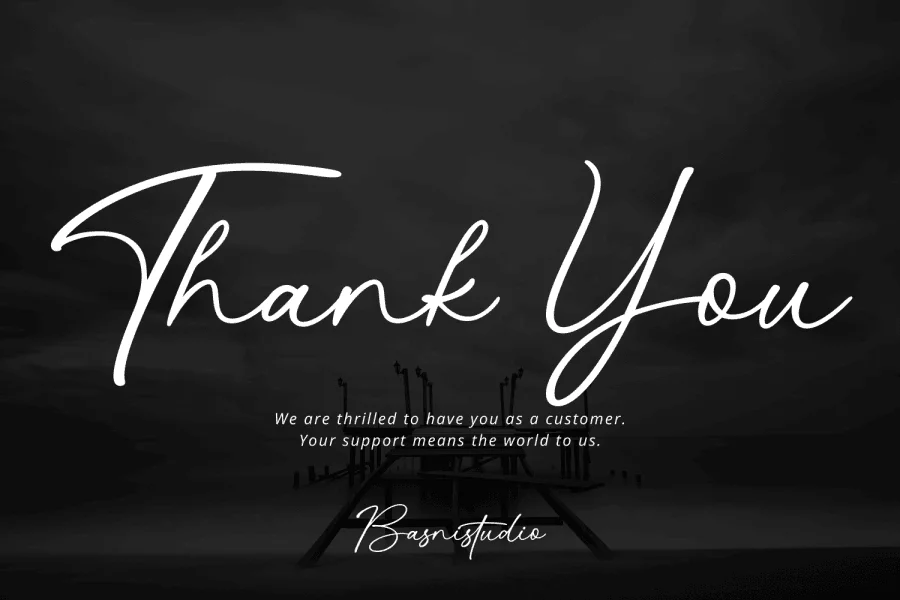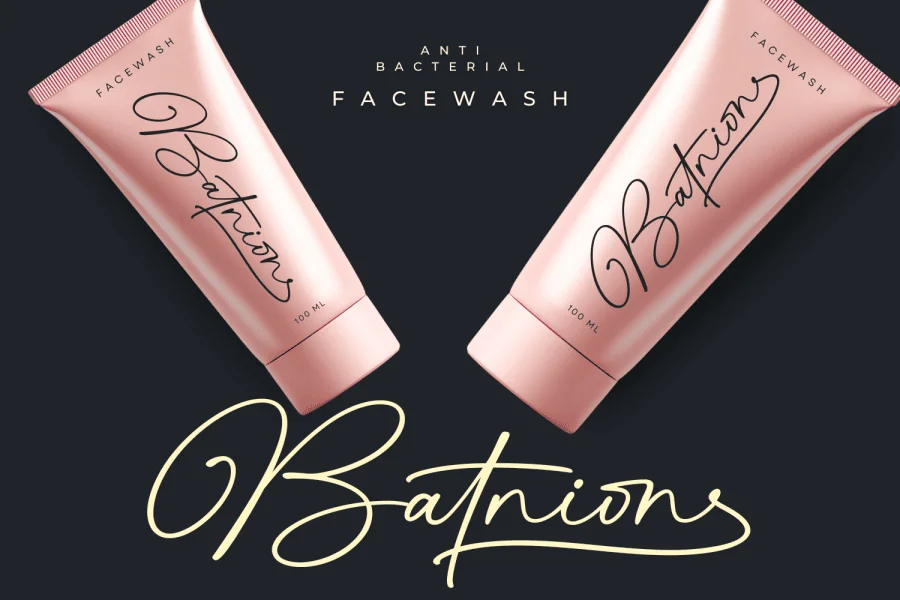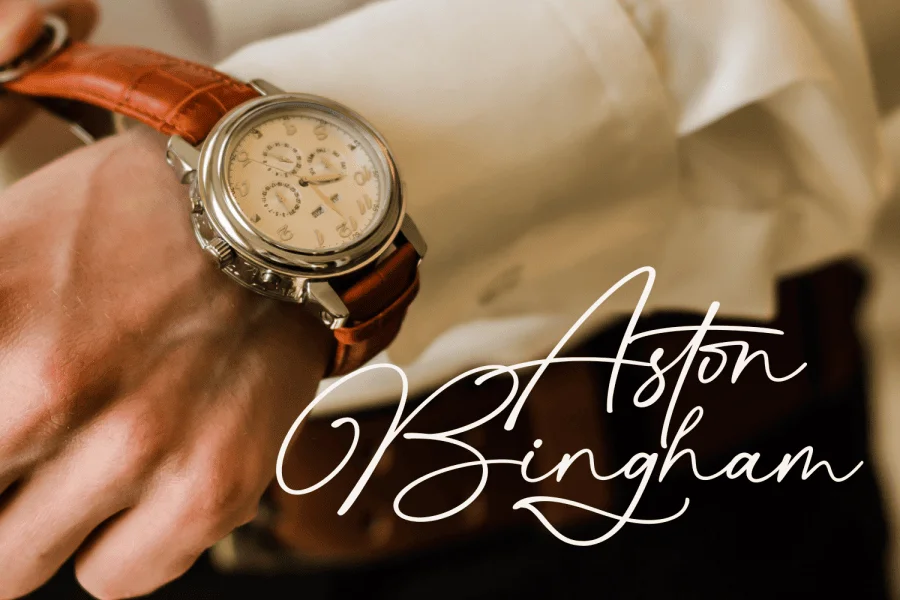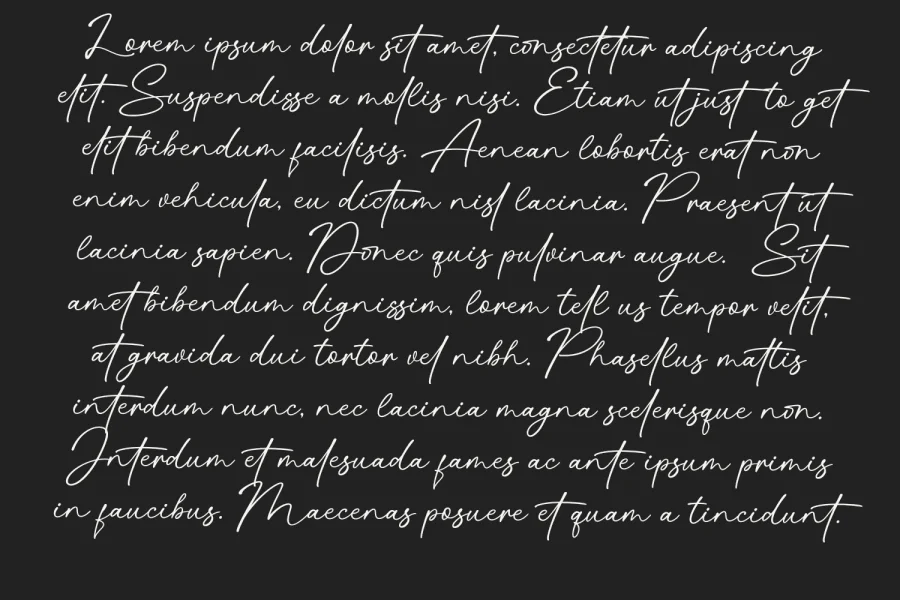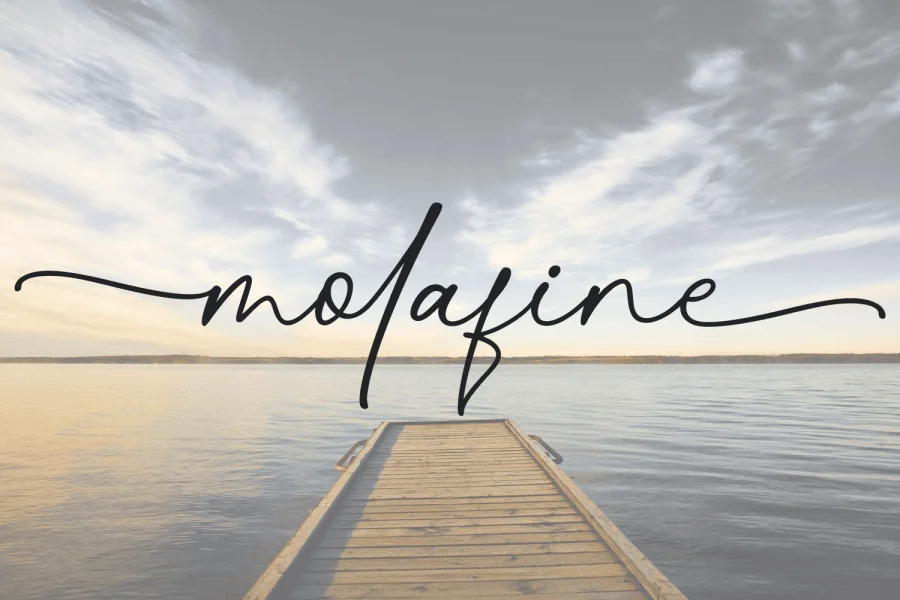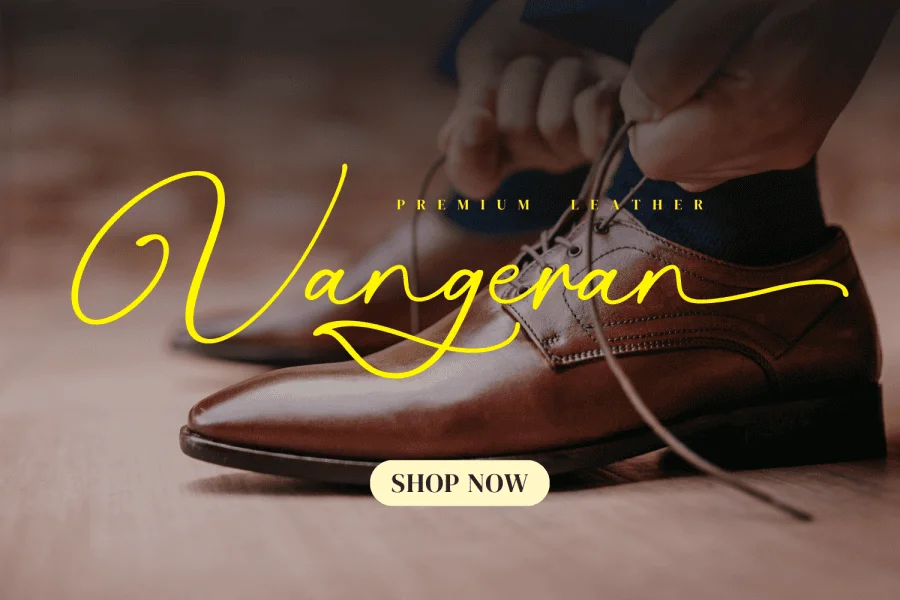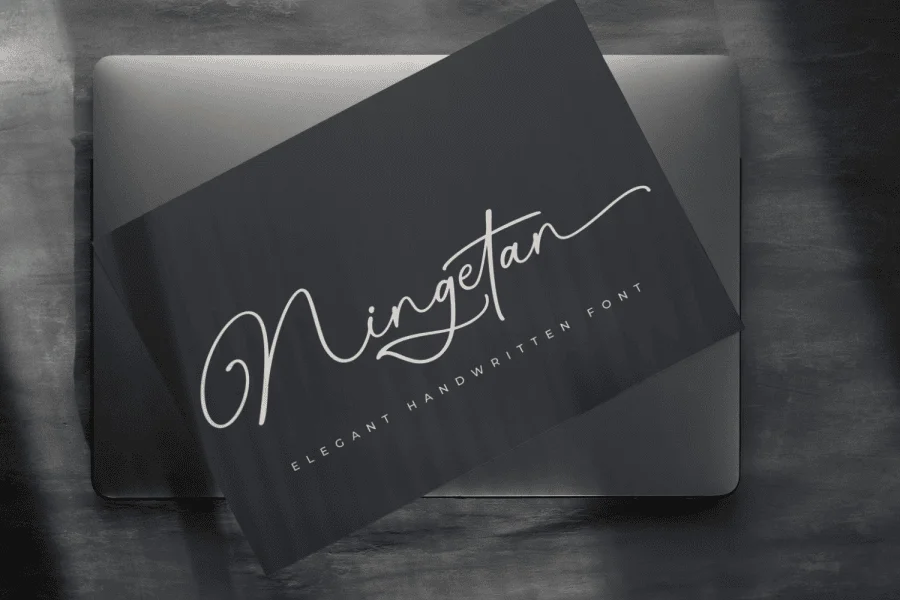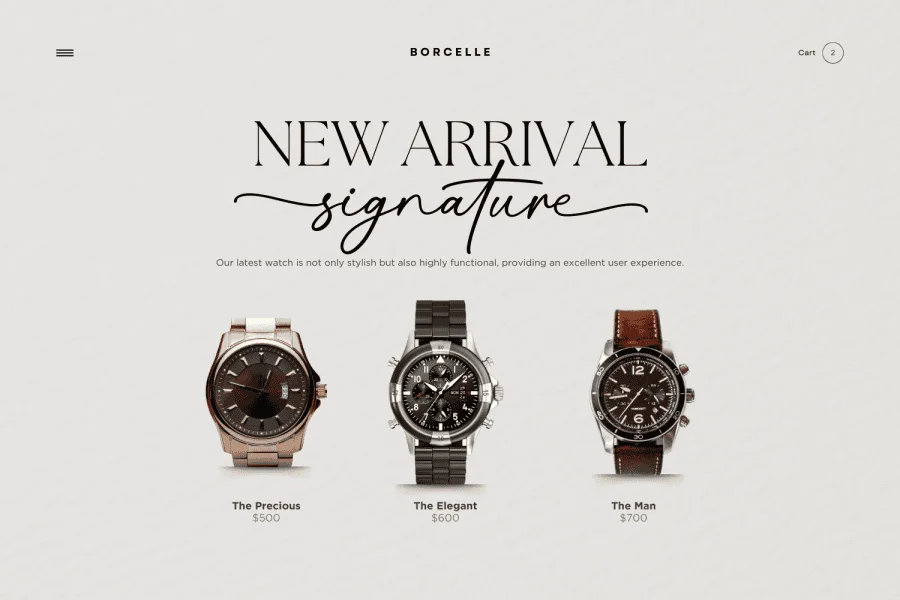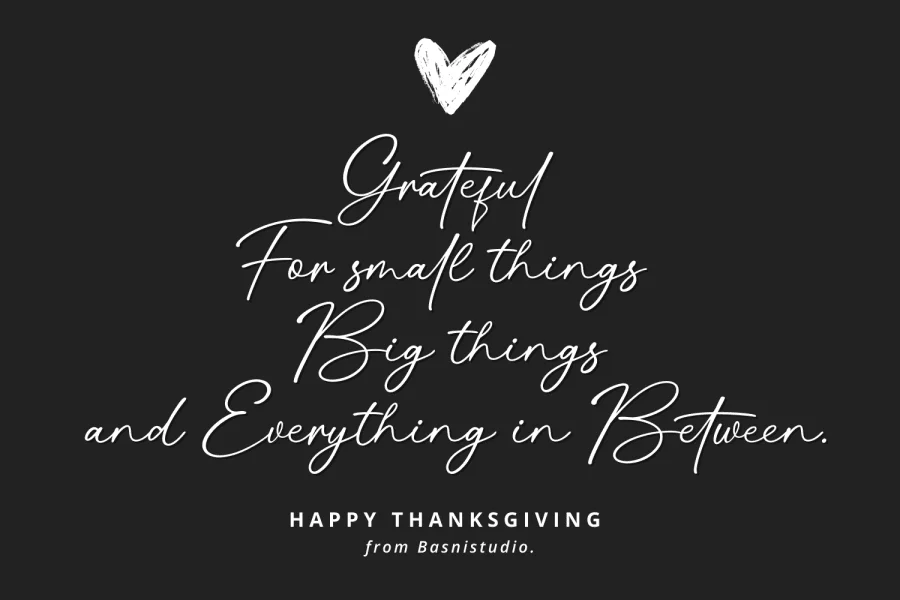
Introducing Ningetan Elegant Handwritten Font Design with a luxurious character. Every letter is carefully crafted to deliver a polished and professional look.